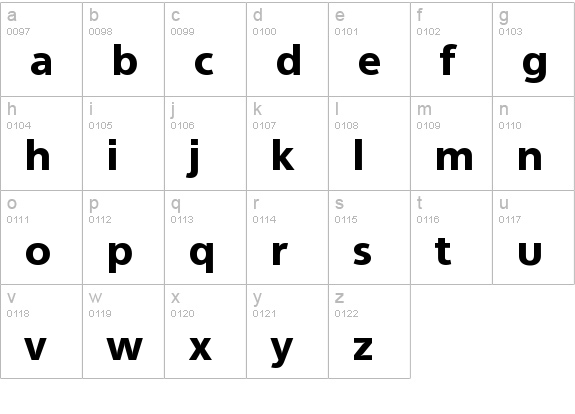
QuebecSerial-Heavy-Regular is a heavy, high-impact variant in the QuebecSerial typeface family \xE2\x80\x94 well suited to high-impact headlines, posters, and display advertising.
QuebecSerial-Heavy-Regular is a bold and commanding font that exudes strength and professionalism. With its thick lines and sturdy appearance, this font is perfect for making a bold statement in your designs. Whether you're creating posters, headlines, or branding materials, QuebecSerial-Heavy-Regular will ensure that your message is loud and clear. The best part? QuebecSerial-Heavy-Regular is available for free download at FontsMarket.com! Simply visit the website to access this powerful font and enhance your projects with its impactful design. Don't miss out on the opportunity to add QuebecSerial-Heavy-Regular to your font collection and elevate your visual creations with its striking aesthetic.